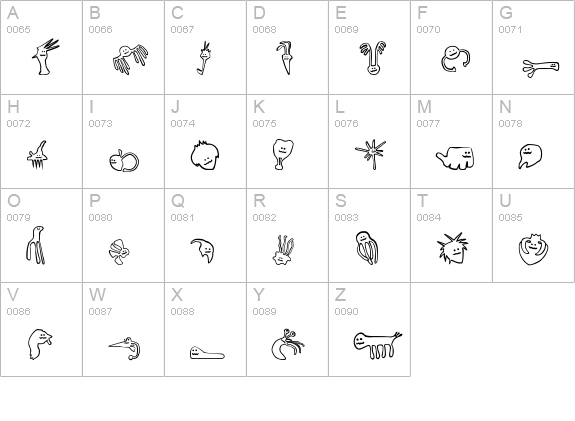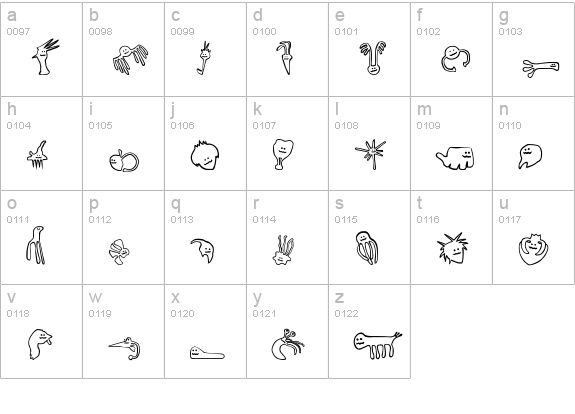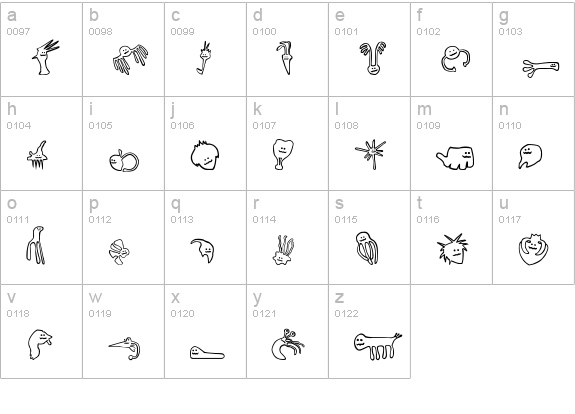
Happy Offsprings of Plankton Font Details
Introducing the delightful Happy Offsprings of Plankton font, a whimsical and charming typeface that is sure to inject a dose of playfulness and joy into your designs. This font is inspired by the tiny and vibrant organisms found in the depths of the ocean, reflecting their buoyant and lively nature through its delightful letterforms. With its unique hand-drawn style, Happy Offsprings of Plankton exudes a sense of childlike wonder and imagination. Each letter is carefully crafted with a playful touch, featuring quirky curves and bouncy strokes that dance across the page. Whether you're designing a children's book, creating eye-catching branding, or simply adding a touch of whimsy to your personal projects, this font is the perfect choice to bring a smile to your audience's faces. But what truly sets Happy Offsprings of Plankton apart is its availability. We believe that creativity should be accessible to all, and that's why this font is freely available to download at FontsMarket.com. You can now unleash your imagination without any constraints, as this font provides you with the freedom to explore and express your unique vision. So go ahead and let your creativity run wild with Happy Offsprings of Plankton – the possibilities are endless! With its wide range of characters, including uppercase, lowercase, numerals, and punctuation, Happy Offsprings of Plankton offers versatility and flexibility in your designs. Its seamless compatibility with various design software ensures a smooth and hassle-free experience as you incorporate this font into your projects. So why wait? Download Happy Offsprings of Plankton today from FontsMarket.com and embark on a journey of creativity and joy. Let this font be your trusted companion in adding a touch of whimsy and happiness to your designs. Get ready to captivate your audience and spread positivity with every letter.